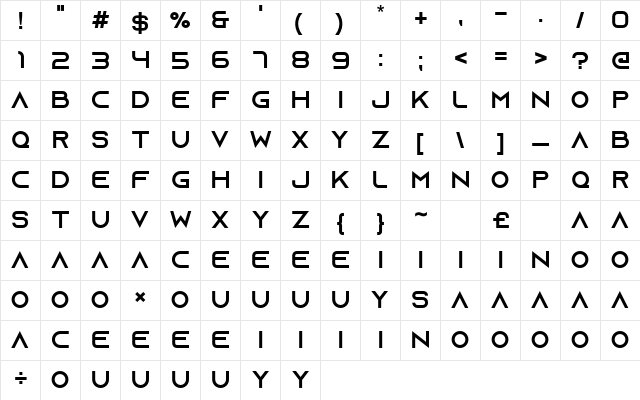
Azonix Regular
| Designer | Mixo (mixofx) |
Design Context for Azonix Typeface
Azonix offers clean, dependable letterforms without strong stylistic allegiance, making it a practical choice for designers who need flexibility.